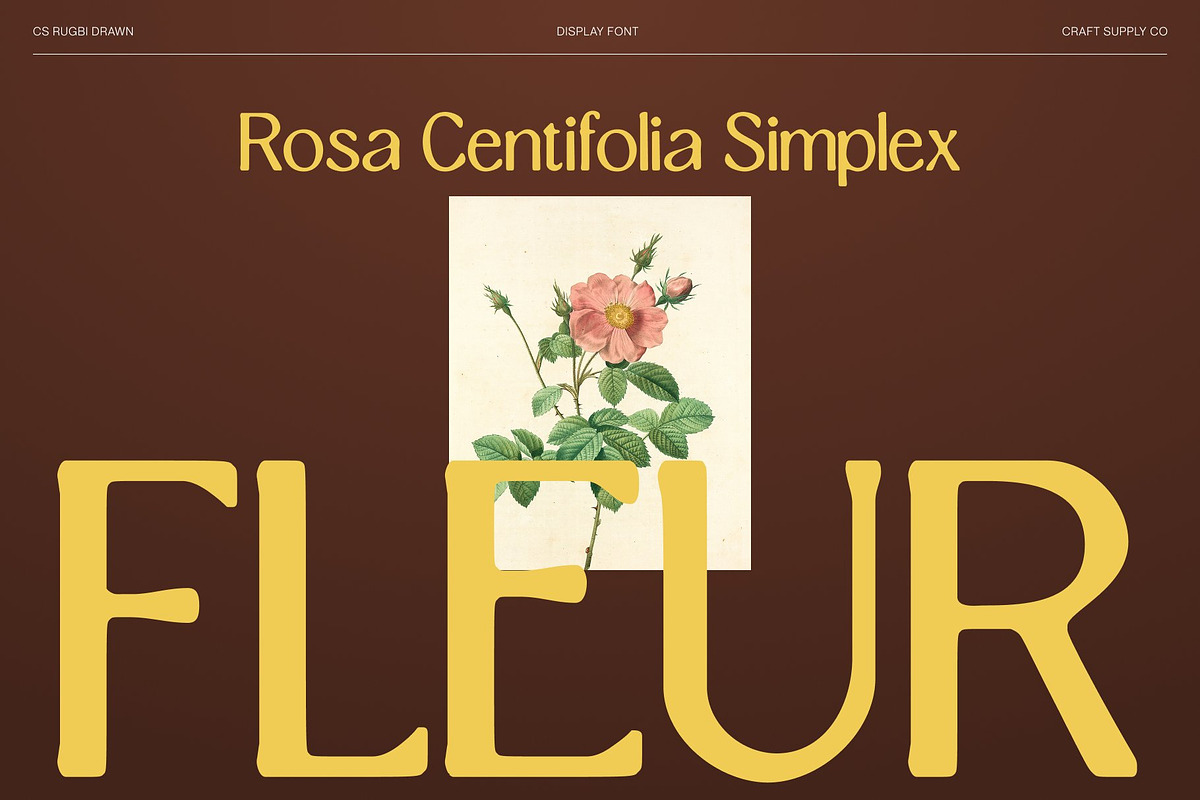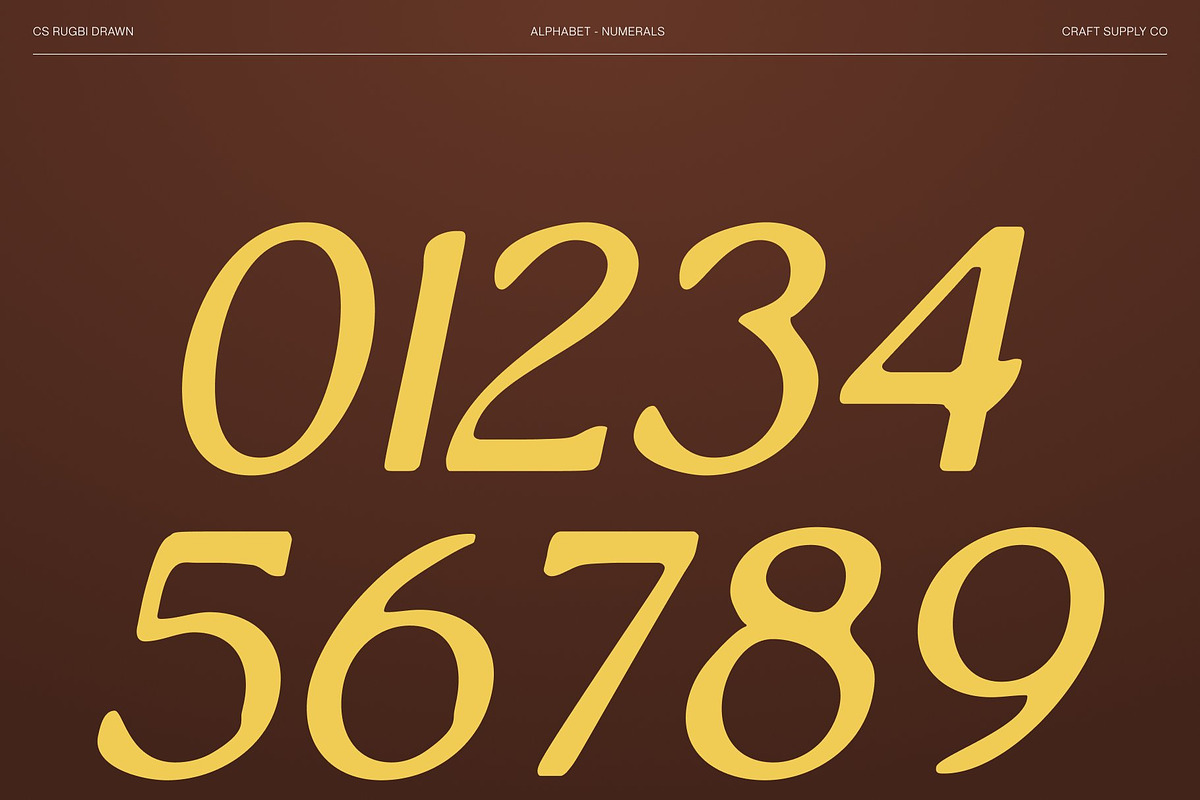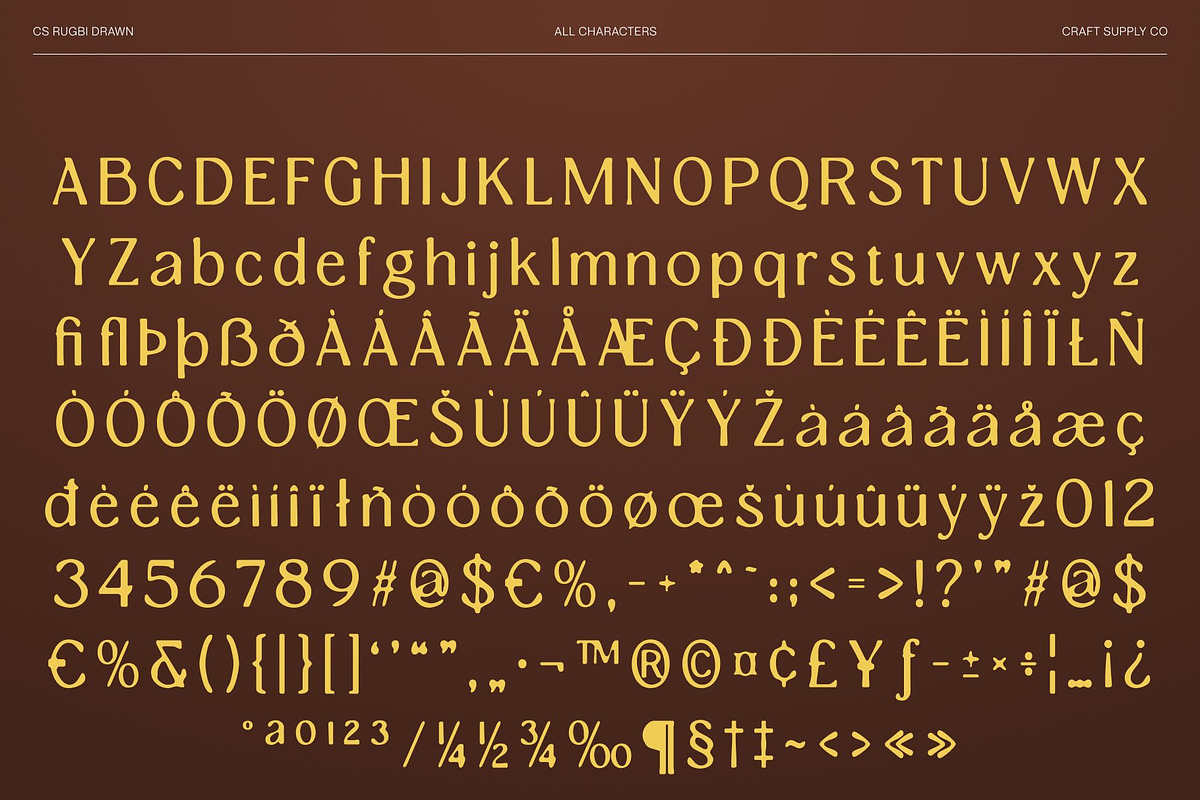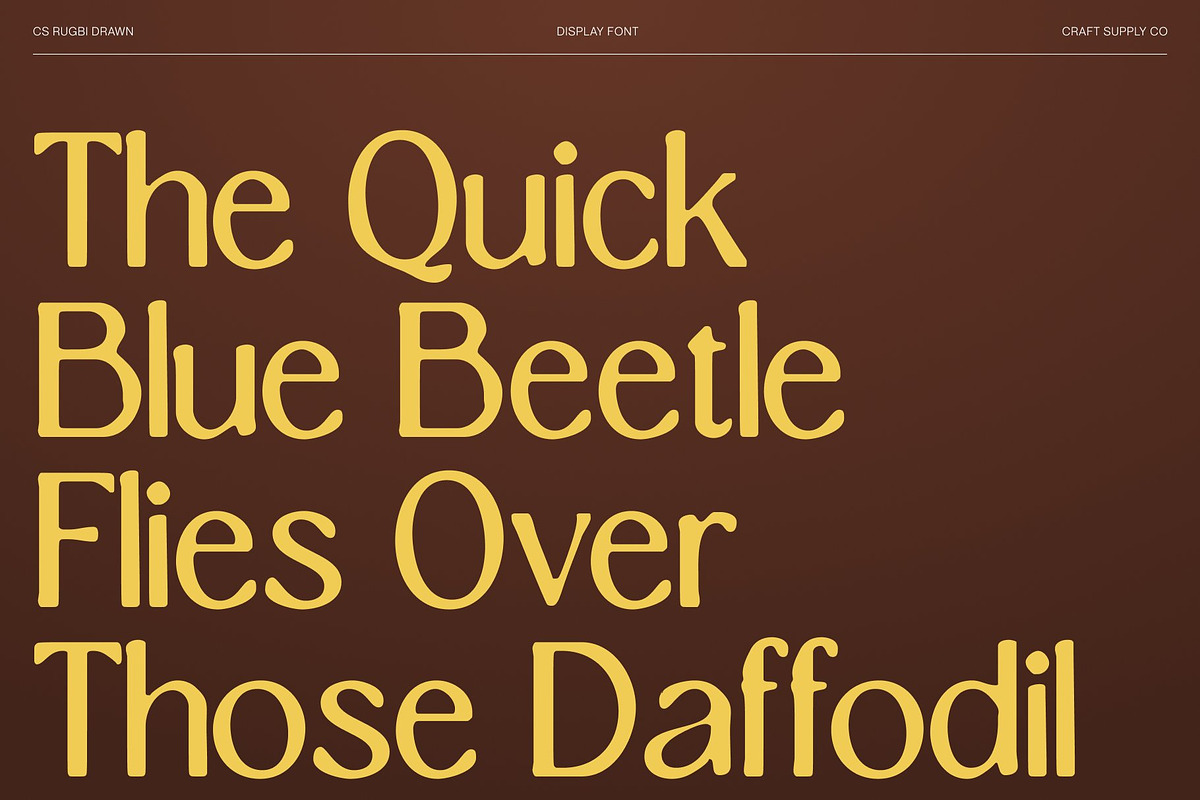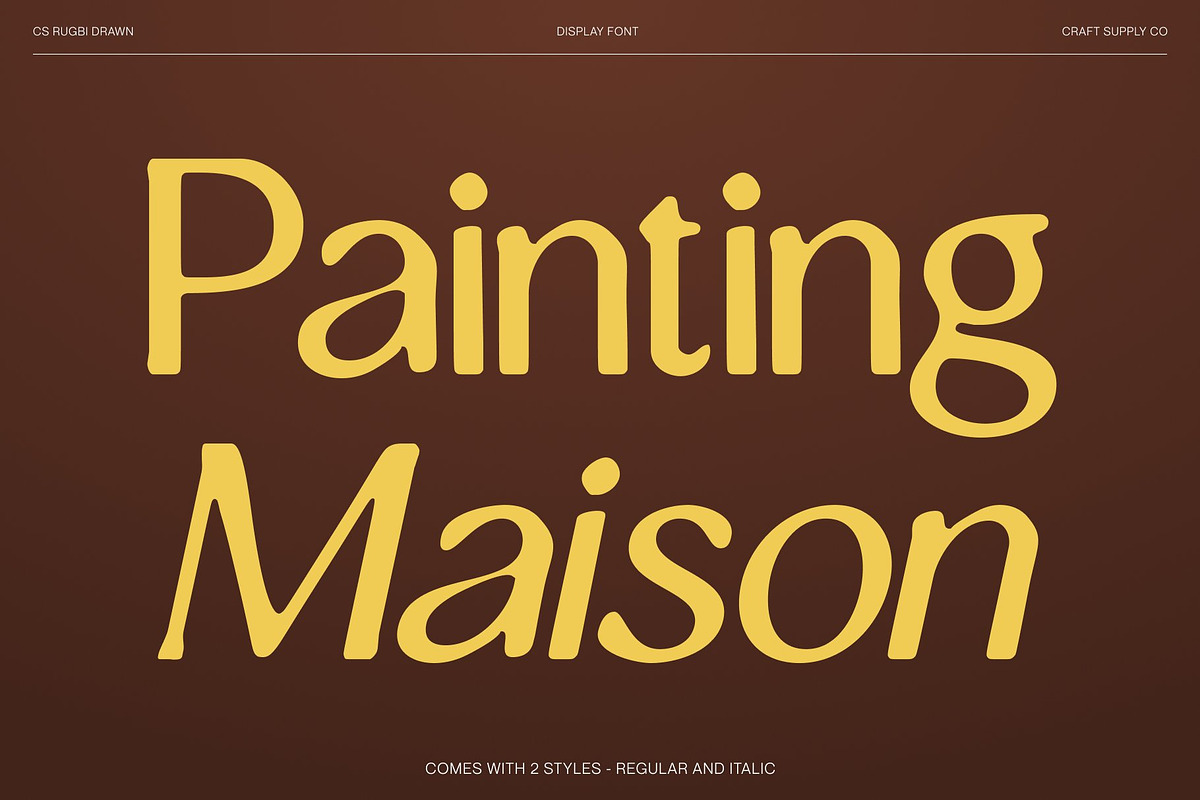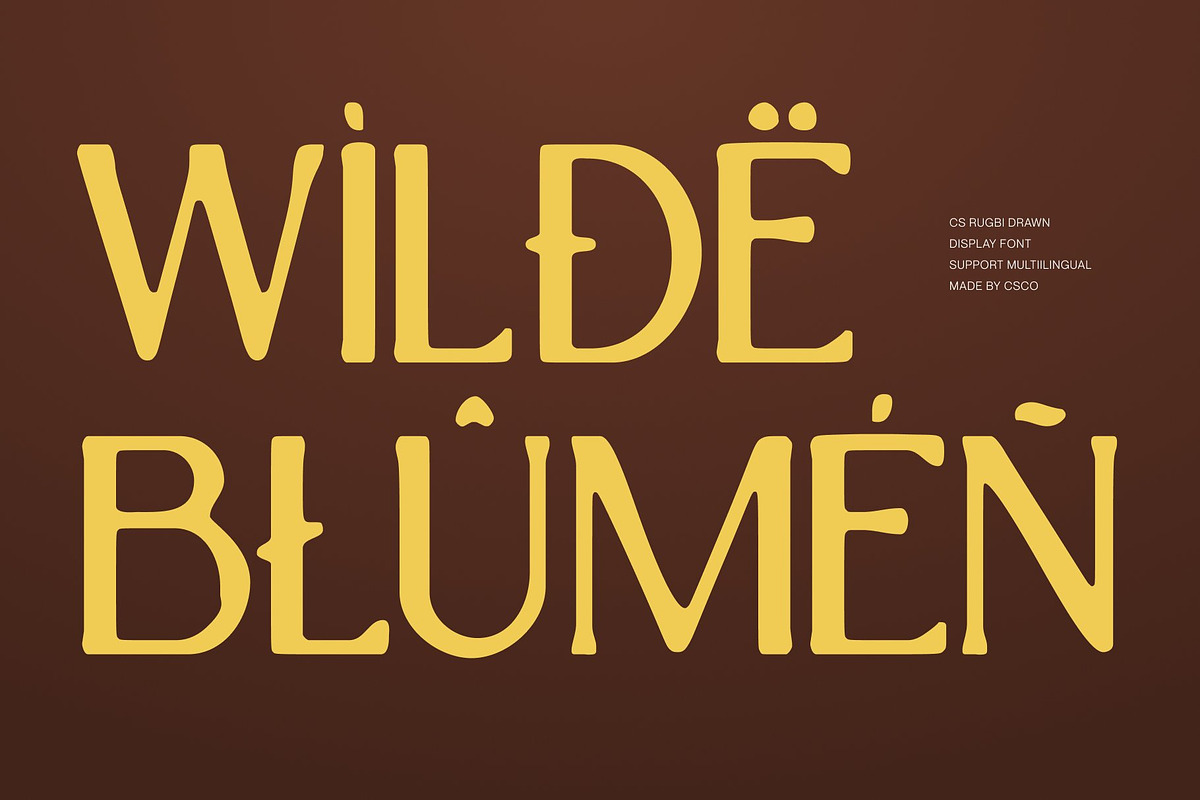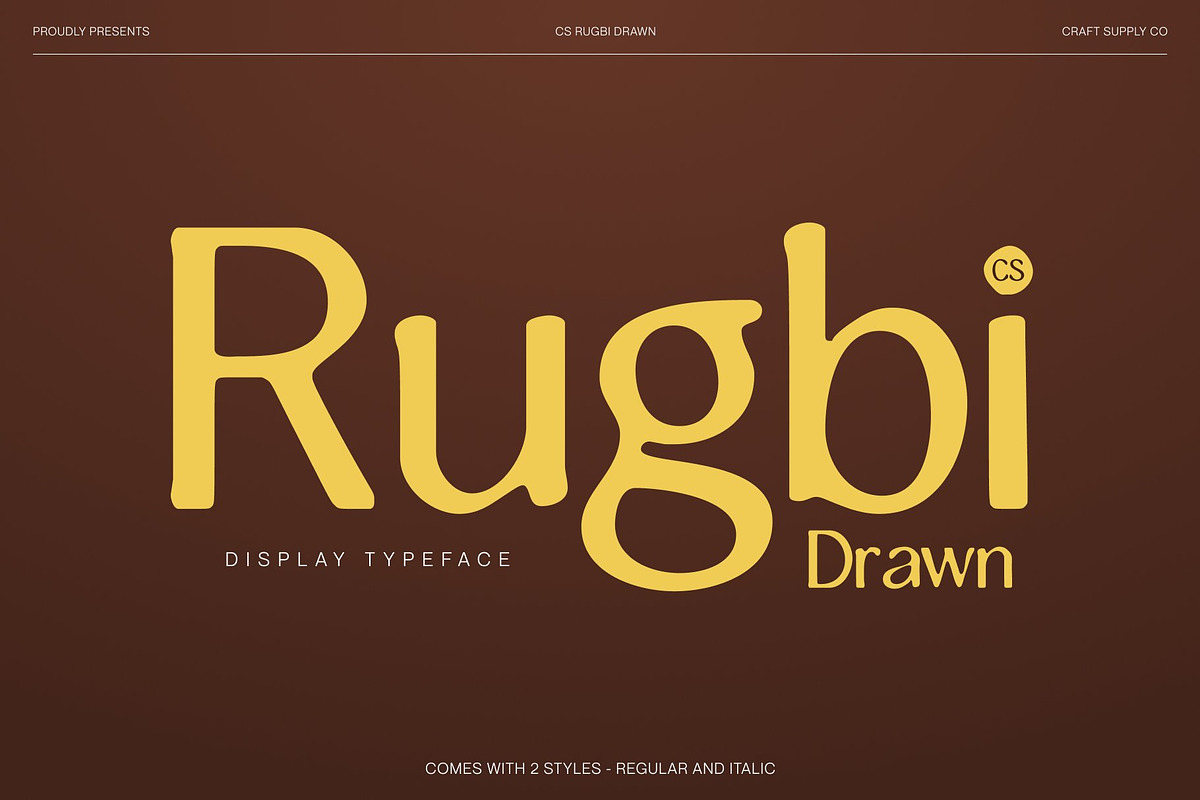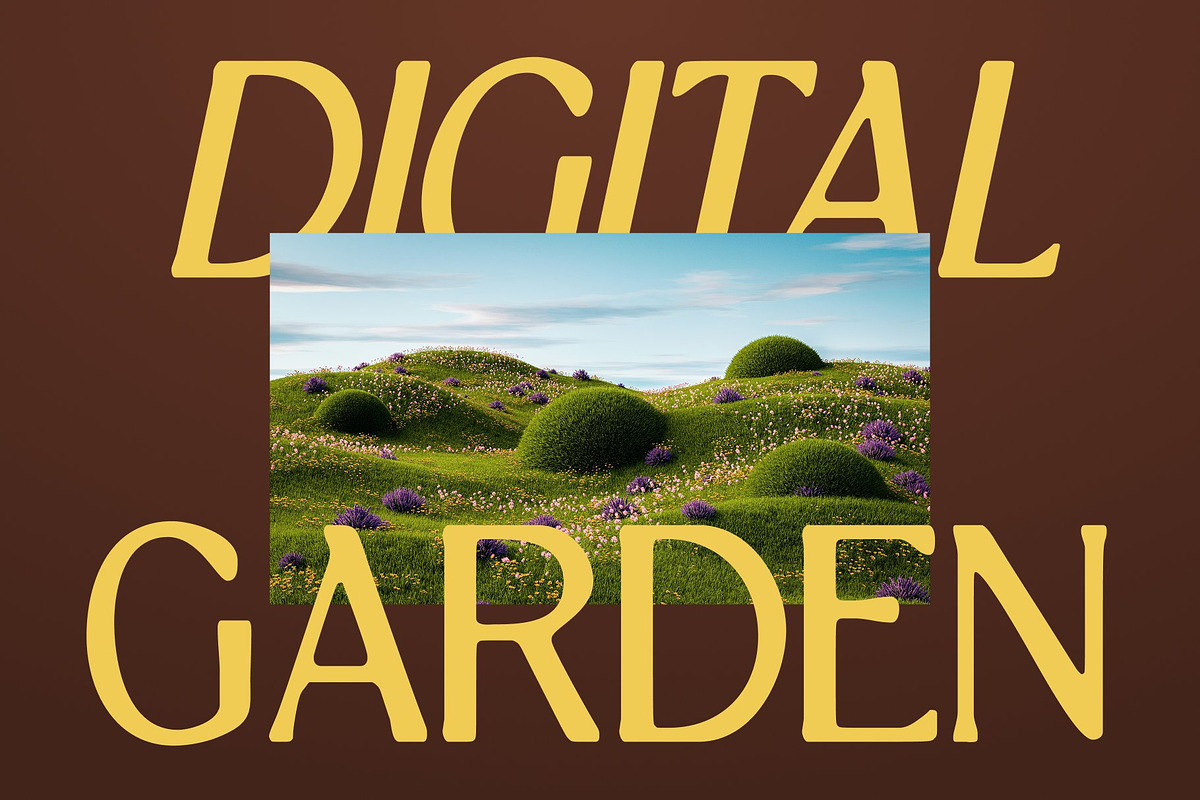
CS Rugbi Drawn
CS Rugbi Drawn – Modern Serif with Elegant Handcrafted Detail
Refined Structure with Contemporary Elegance This is a modern serif font designed with clean, contemporary lines and elongated, graceful serifs. Its well-balanced proportions and refined forms convey sophistication, professionalism, and timeless elegance, making it ideal for high-end visual projects that demand clarity and style.
Slender, Elongated Forms for Visual Sophistication The font’s long, slender serifs enhance vertical rhythm and elegance, creating a refined aesthetic that draws the eye. These carefully crafted letterforms combine modern minimalism with classical serif qualities, resulting in a font that feels both current and timeless.
Hand-Drawn Effect for Artistic Expression The subtle drawn texture adds a handcrafted touch to the otherwise clean and structured forms. This organic detail introduces depth, warmth, and individuality, giving the font a unique personality while softening its geometric precision. The drawn effect ensures each letter feels alive and expressive, elevating the design with artistic nuance.
Ideal for Luxury, Editorial, and Creative Applications This font perfect for luxury branding, high-end editorial layouts, posters, book covers, and creative projects seeking sophistication with artistic flair. Its combination of modern structure, elegant serifs, and handcrafted texture creates a memorable typographic voice that communicates refinement, creativity, and enduring style.